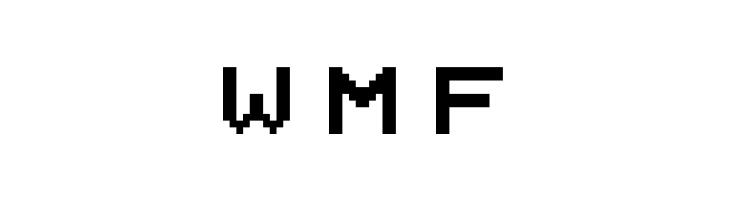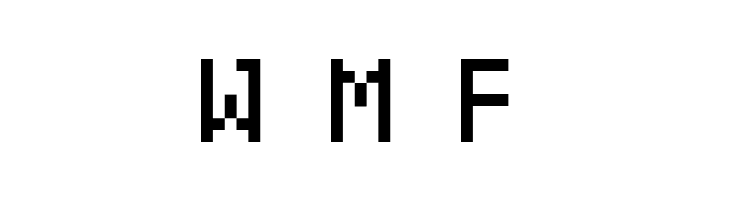
A modern, rounded sans-serif font with smooth curves and a clean appearance.
A sophisticated, elegant handwritten font with a cursive style.
A modern-vintage font with elongated strokes and playful curves.
A modern, geometric font with artistic double lines and clean strokes.
A modern, geometric font with tall, narrow uppercase letters and rounded lowercase characters.
A modern, high-contrast font with a mix of bold and thin lines.
A bold, playful handwritten font with irregular strokes and a whimsical style.
A playful handwritten font with a casual and dynamic style.
A bold, rugged font with thick strokes and a hand-crafted appearance.
A bold, angular font with a geometric, blocky design ideal for modern, edgy projects.
A playful, handwritten font with bold, irregular strokes and a casual feel.
A playful, handwritten font with rounded edges and a casual, approachable style.
A charming and elegant handwritten cursive font with fluid letterforms.
A bold, handwritten-style font with a playful and energetic vibe.
A bold, decorative font with heart motifs and a playful style.
A pixelated, retro-style font with a digital, blocky appearance.
A playful and rounded font with smooth curves and a whimsical touch.
A pixelated, retro-style font with a bold, blocky appearance.
A pixelated, blocky font with a retro digital aesthetic.
A modern, geometric font with high contrast and sleek lines.
A pixelated, blocky font with a retro digital aesthetic.
A wavy, hand-drawn font with a whimsical, energetic style.
A hand-drawn, narrow font with a whimsical and artistic style.
A tall, narrow font with a geometric and modern style.
A playful, handcrafted font with a whimsical, paper-cut style.
An elegant script font with flowing, interconnected letters and a calligraphic style.
A modern, geometric font with thin lines and abstract shapes, perfect for creative projects.
A modern, geometric font with a clean and sophisticated design.
A pixelated, blocky font with a retro digital aesthetic.
A playful and elegant script font with smooth, flowing lines and a cursive style.
A bold, distressed font with a roller-printed, textured appearance.
A bold serif font with a classic and elegant style.
A decorative font with characters inside key-shaped outlines.
A bold, decorative font with a vintage tattoo style.